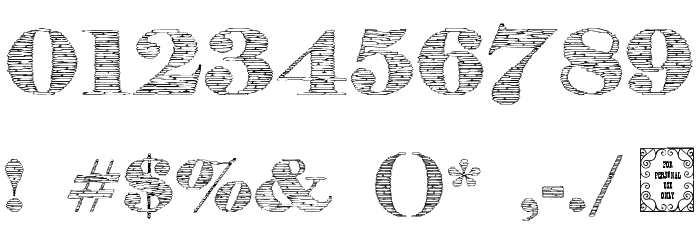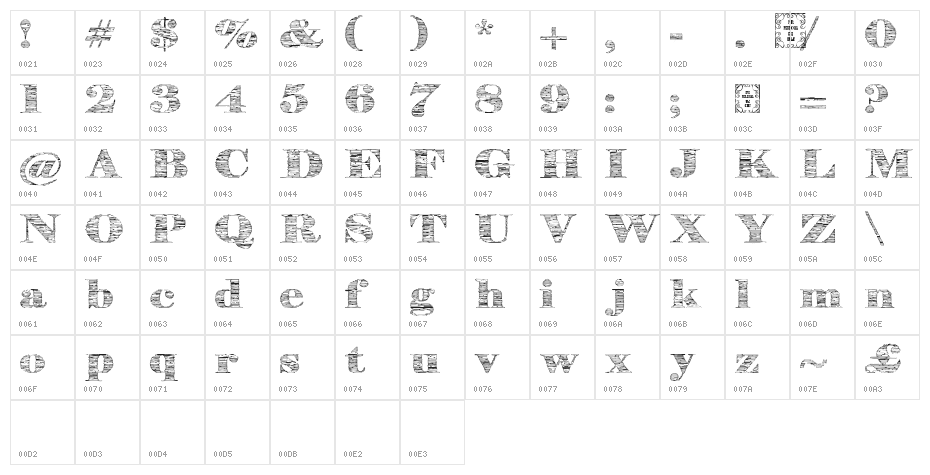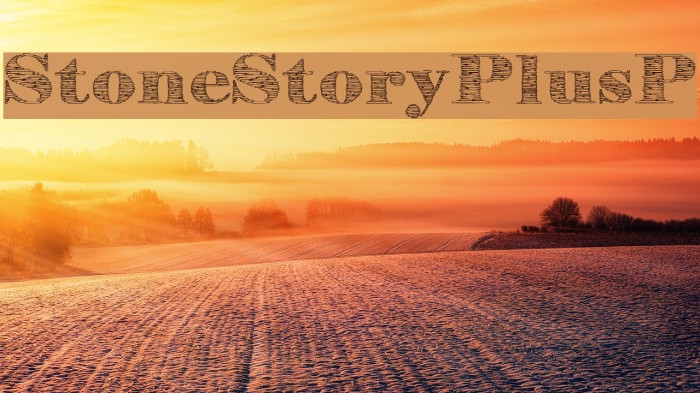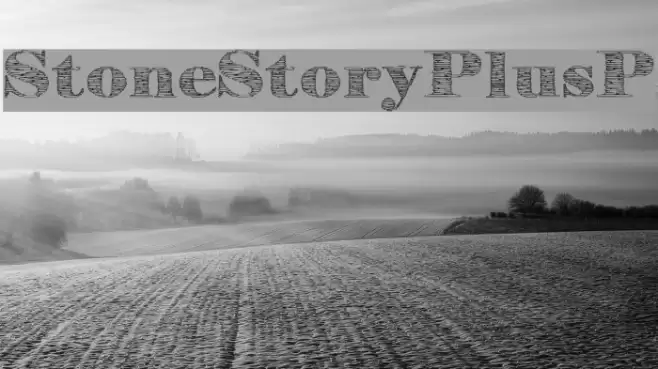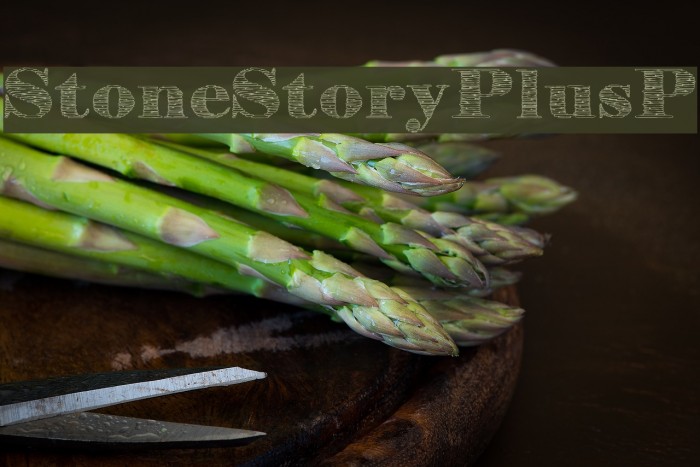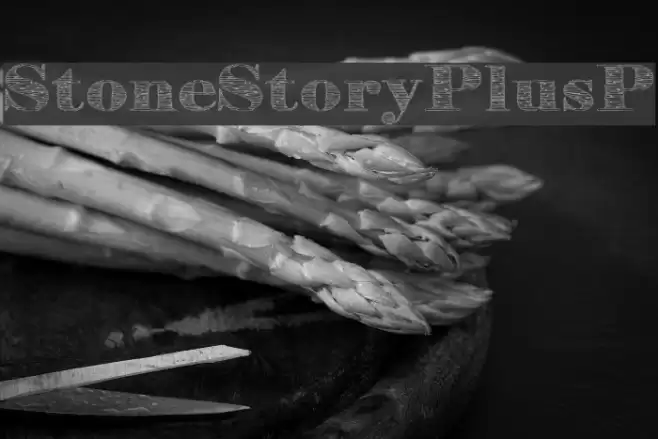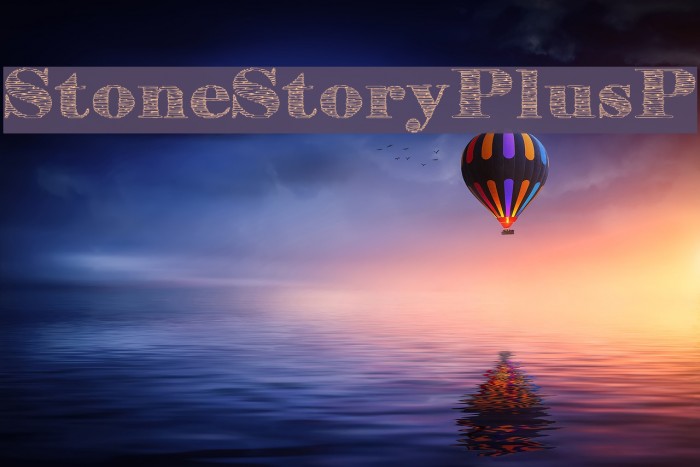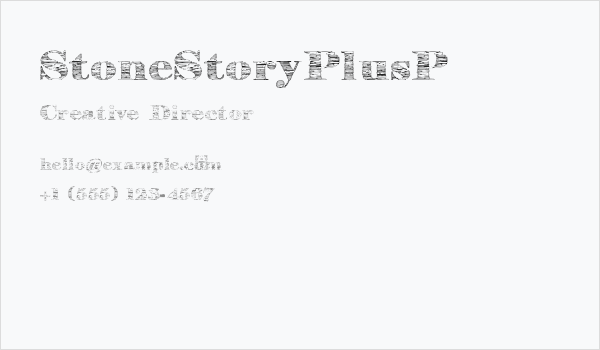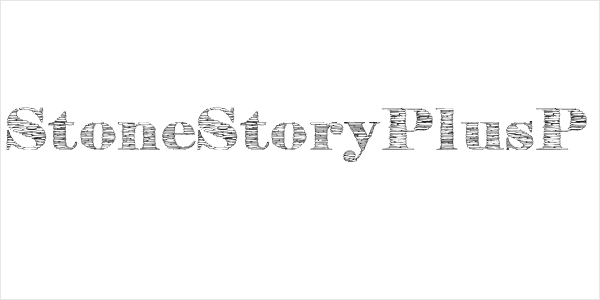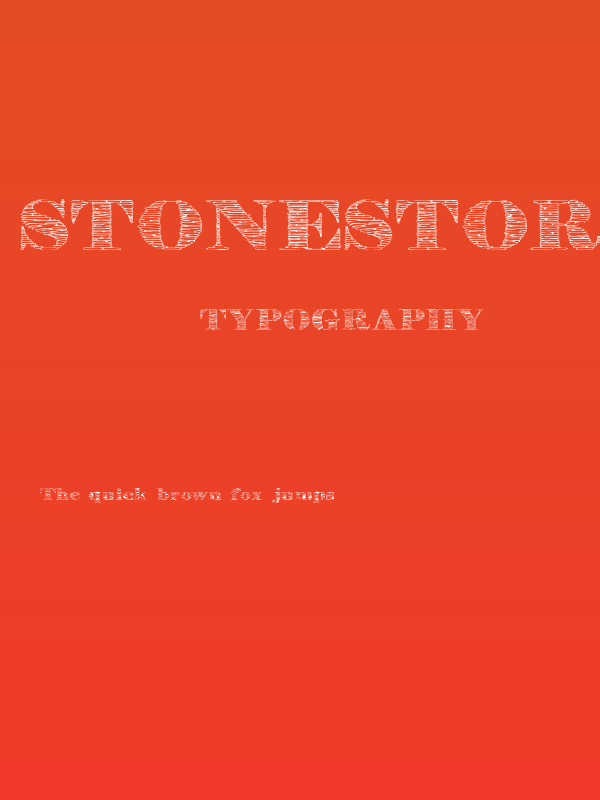
StoneStoryPlusP Font
StoneStoryPlusP Description
This font features a unique, textured design that mimics the appearance of stone or carved surfaces. Each character is filled with horizontal lines that give it a rugged, hand-chiseled look. The uppercase and lowercase letters maintain a consistent style, with bold serifs and a strong presence. Numbers and special characters are equally detailed, making them stand out with their distinctive, artistic flair. The overall aesthetic is both rustic and sophisticated, offering a blend of traditional serif elements with a modern twist. This font is ideal for projects that require a touch of elegance and creativity, such as branding, posters, or artistic designs.
| Use Case | Logos, Headlines, Artistic Designs |
| Proposed Projects | Ideal for branding, posters, artistic designs, and any project needing a rustic yet sophisticated touch. |